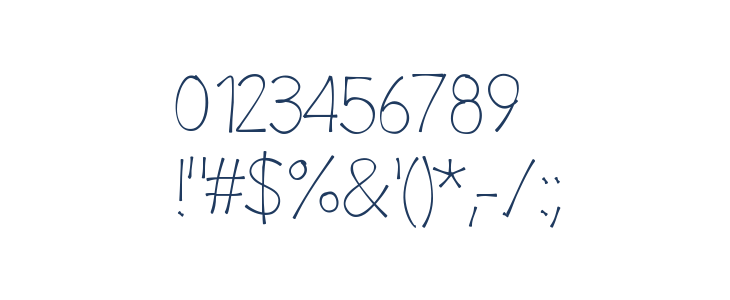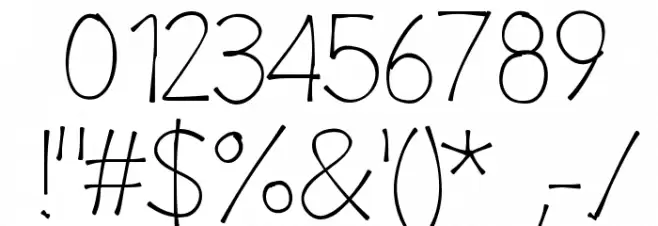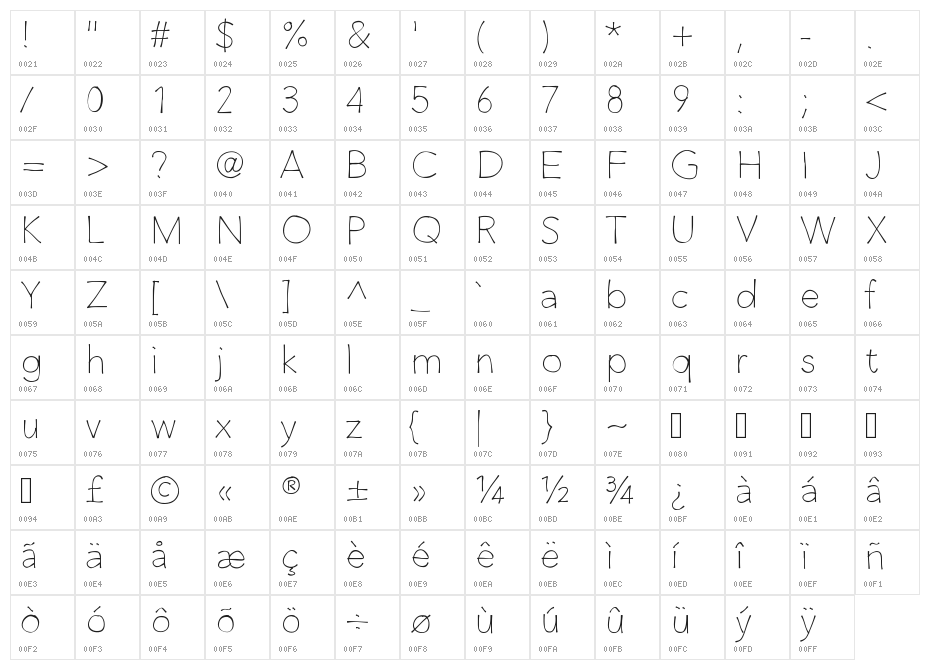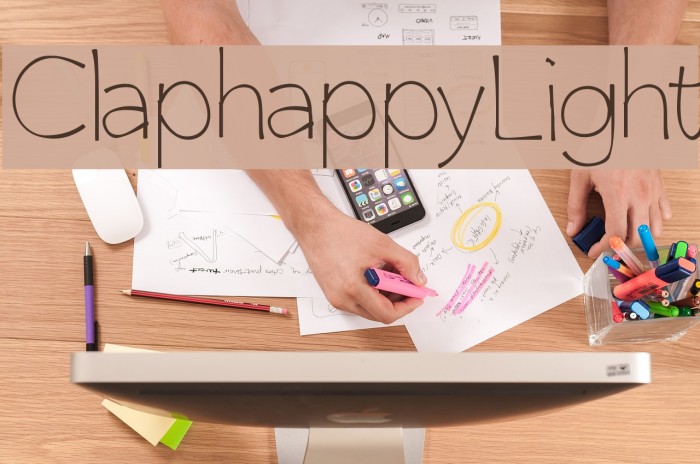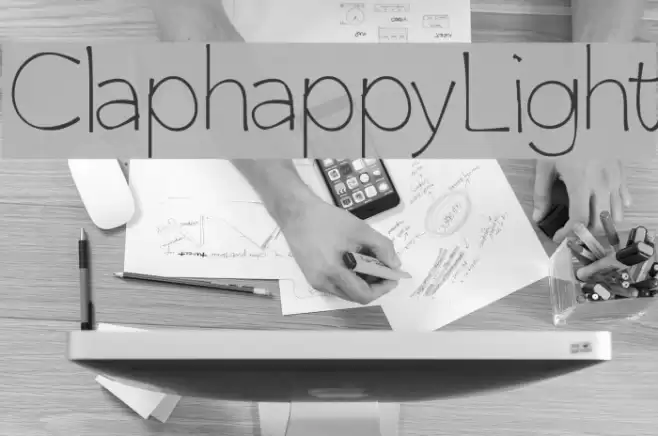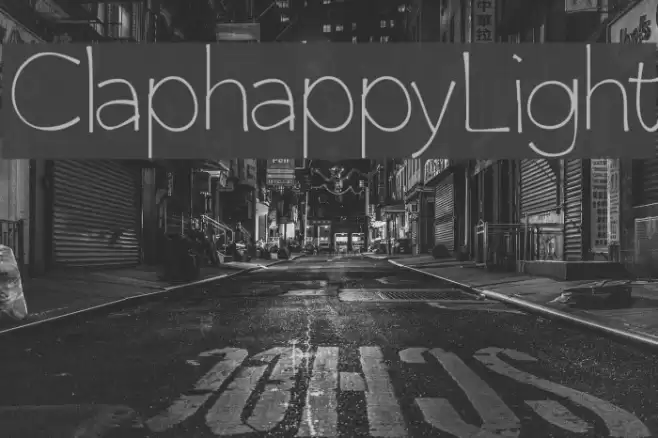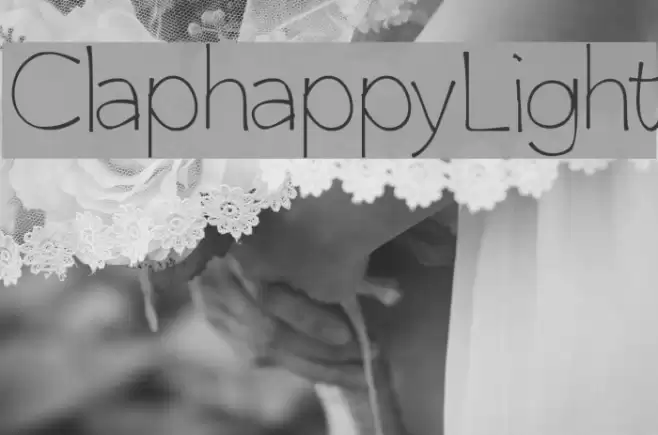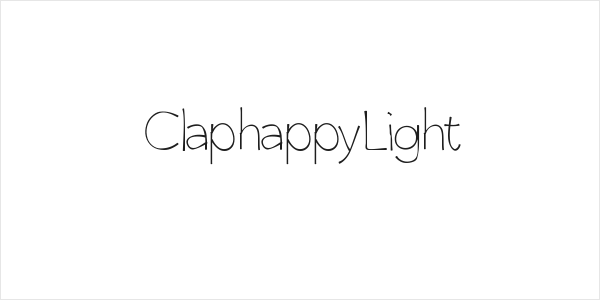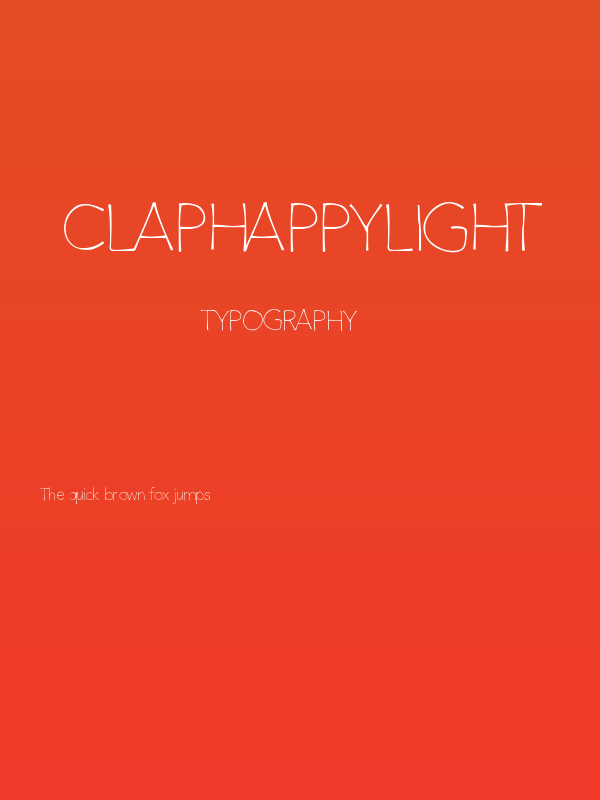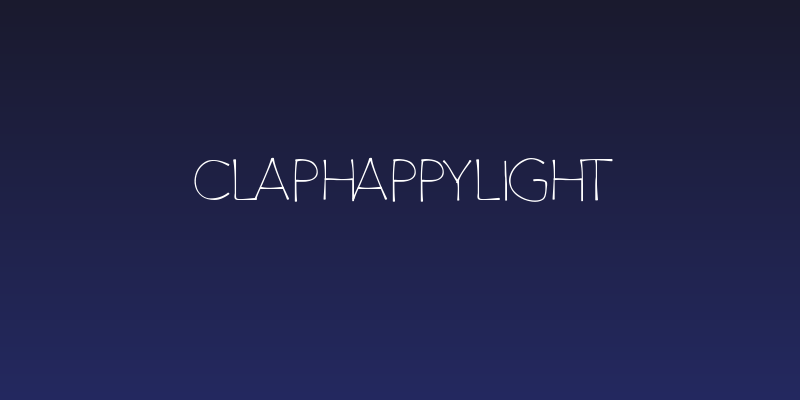
ClaphappyLight Font
ClaphappyLight Description
This font features a playful and whimsical design with a handwritten style. The characters are thin and elongated, giving a light and airy feel. The strokes are consistent in width, contributing to a clean and modern appearance. The uppercase and lowercase letters maintain a uniform height, while the numerals and special characters are designed to complement the overall aesthetic. The font's informal and friendly nature makes it suitable for creative projects that require a touch of personality.
| Proposed Projects | Ideal for children's books, greeting cards, playful branding, and casual invitations. |